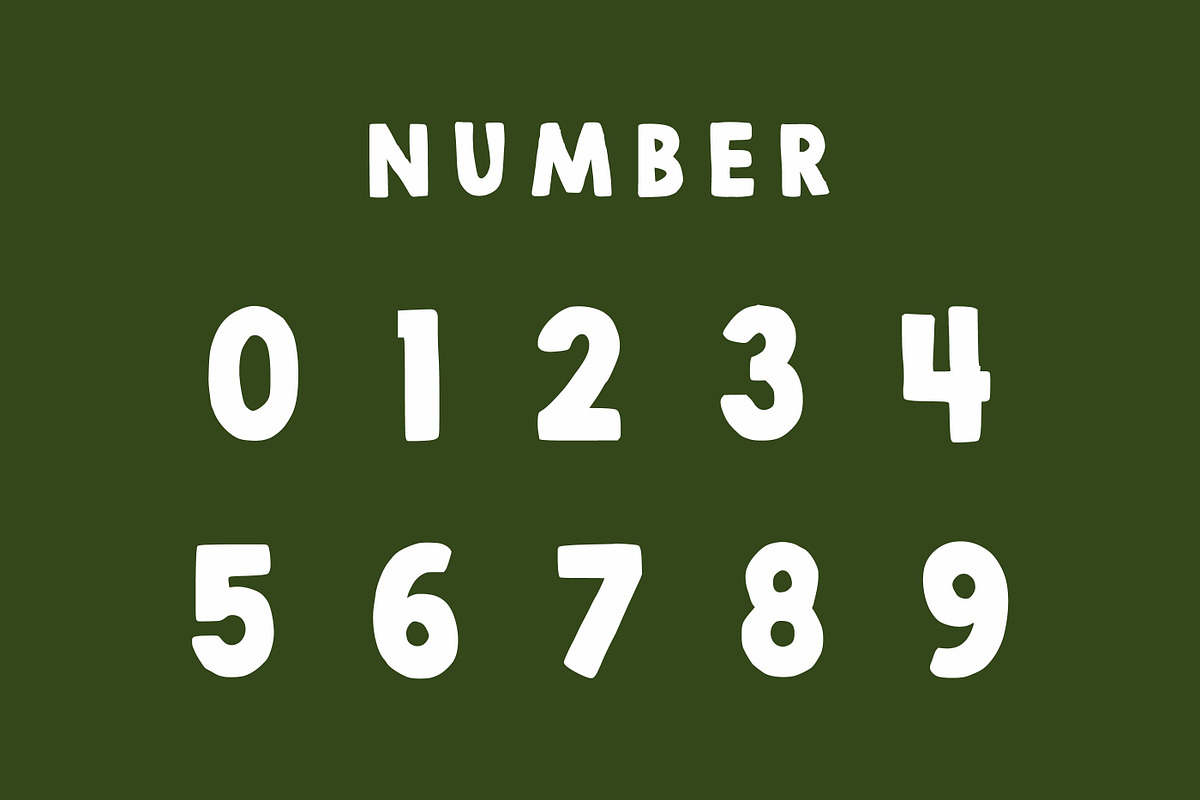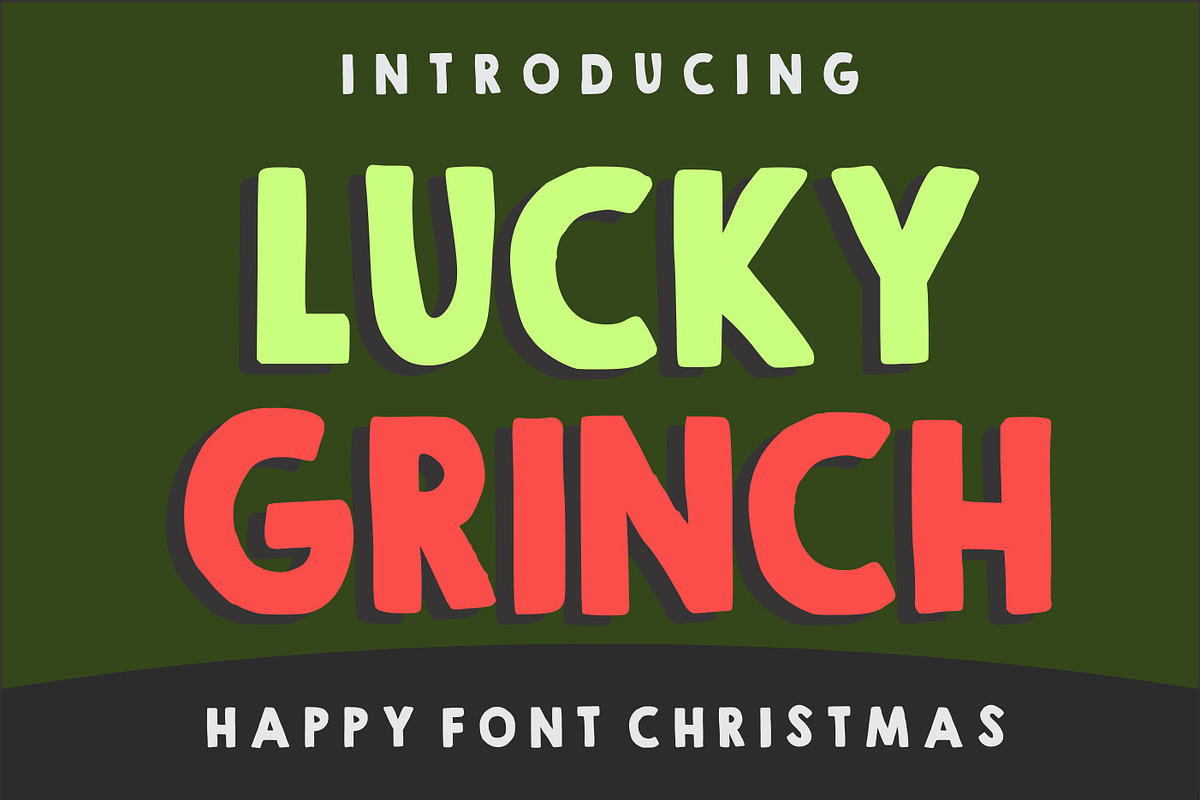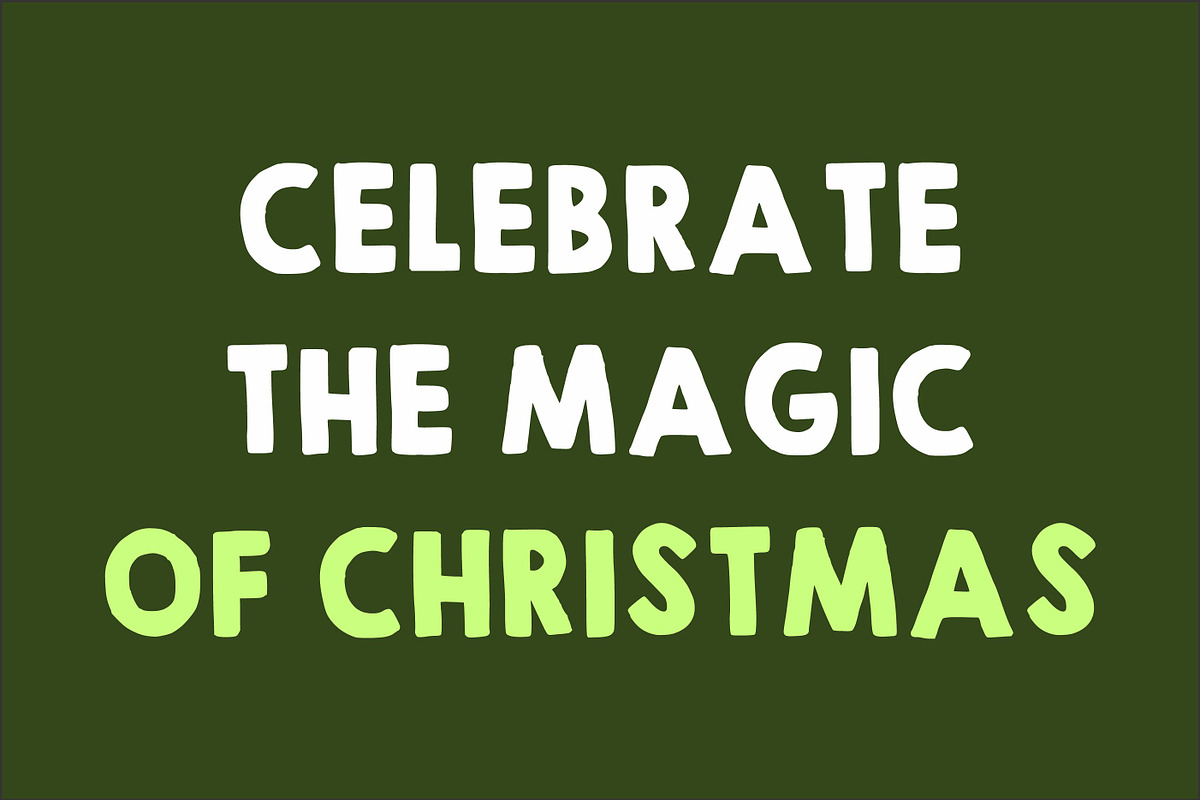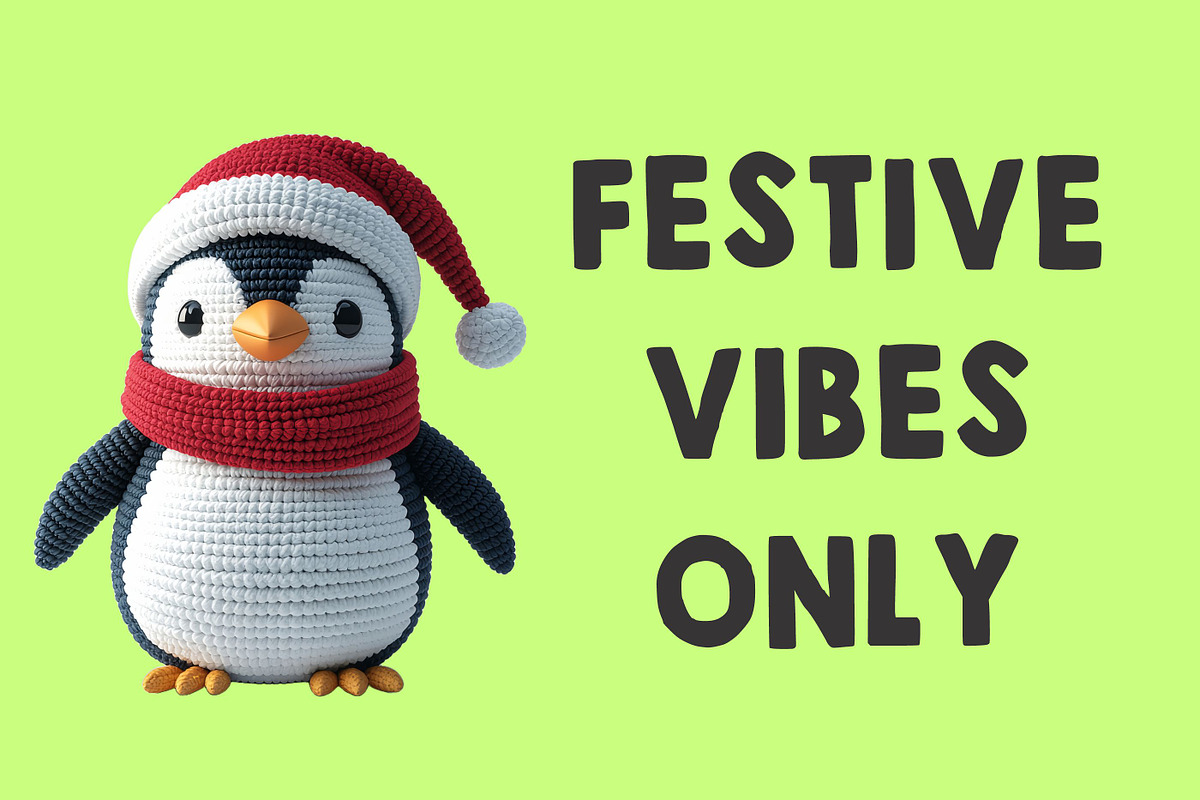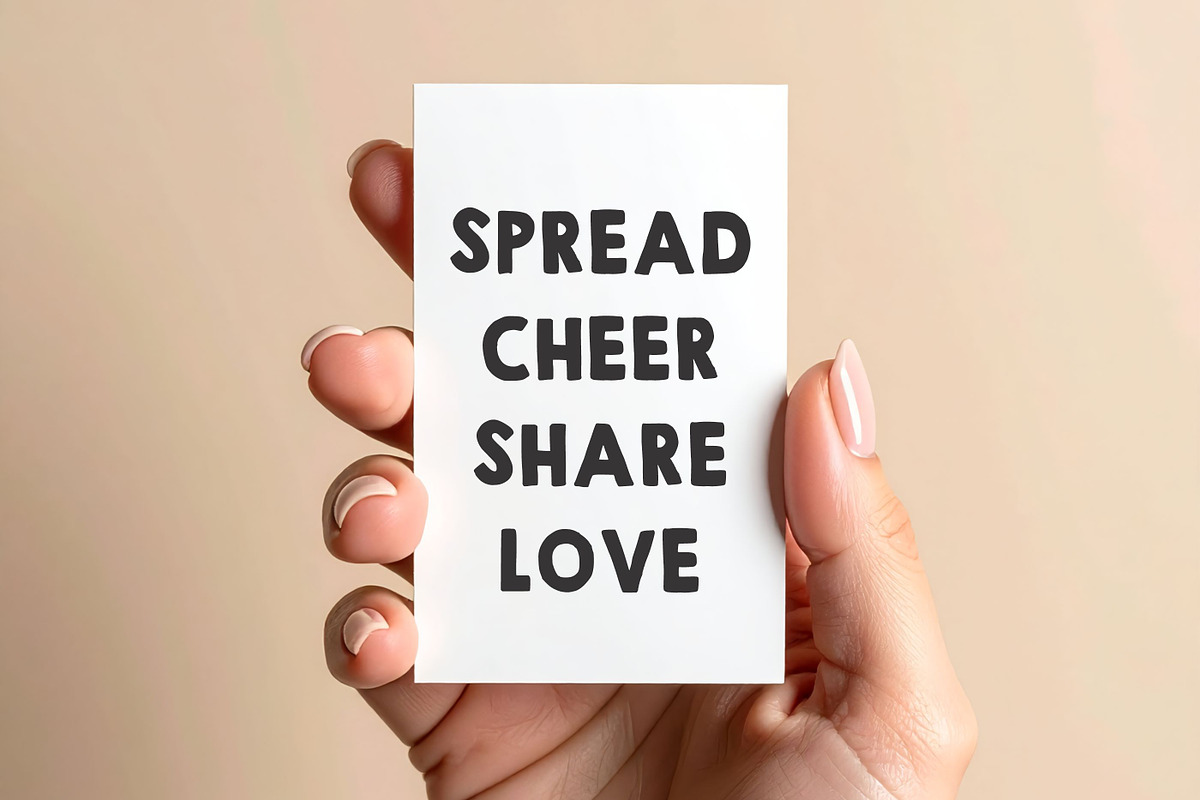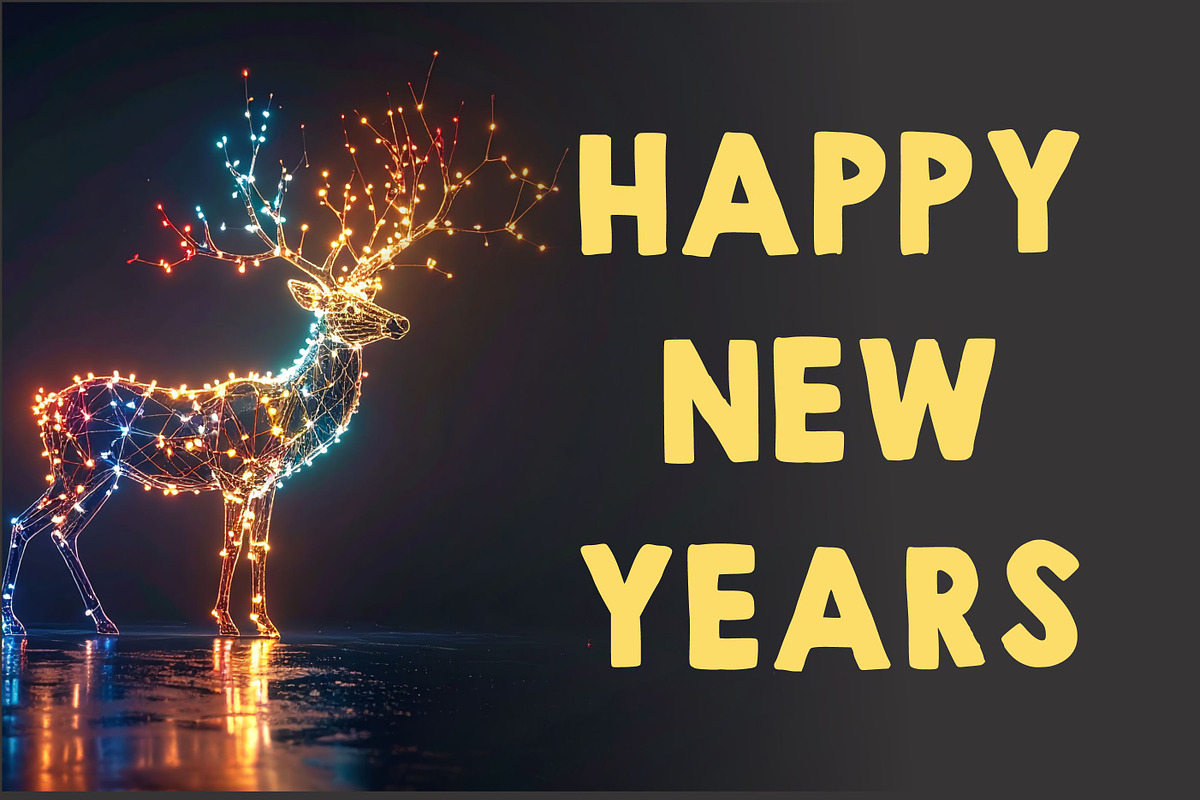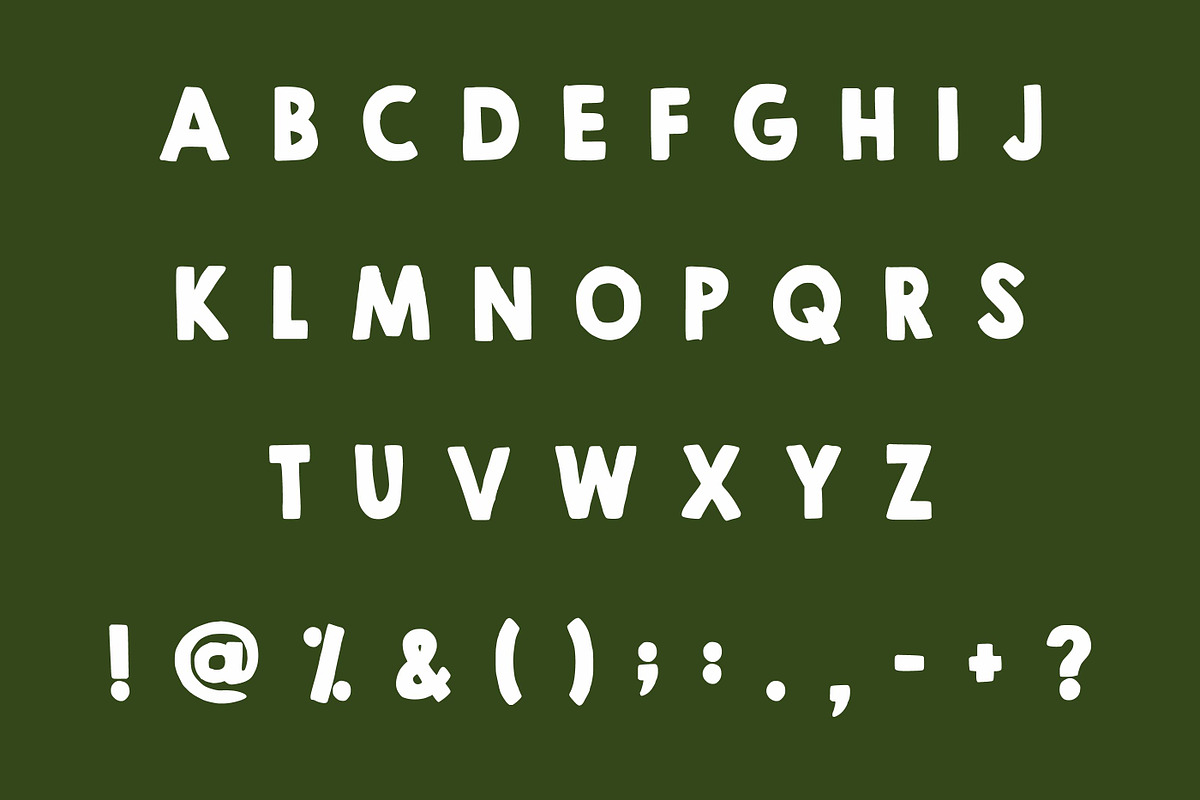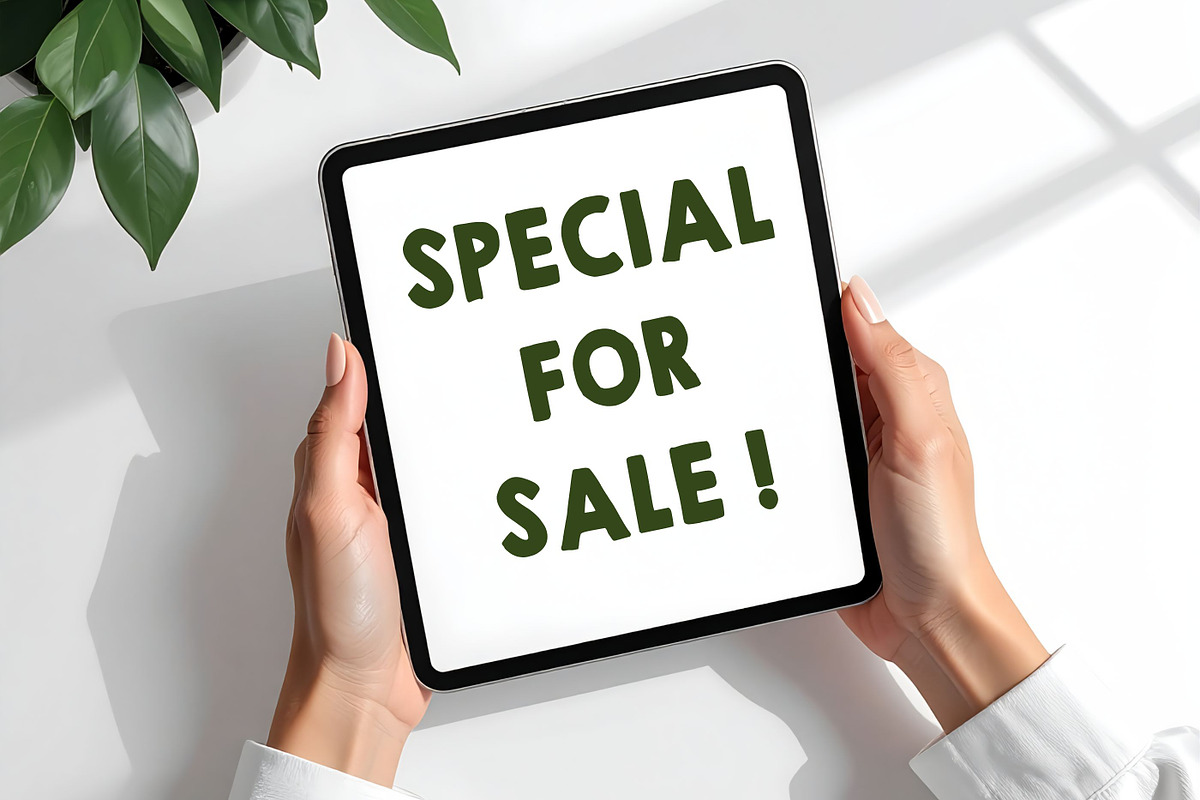
Lucky Grinch
Bring holiday cheer to your designs with Lucky Grinch , a bold and playful display font perfect for festive projects. Its chunky, hand-drawn style with bright, cheerful vibes makes it ideal for Christmas cards, invitations, posters, T-shirt designs, mugs, tote bags, and more.